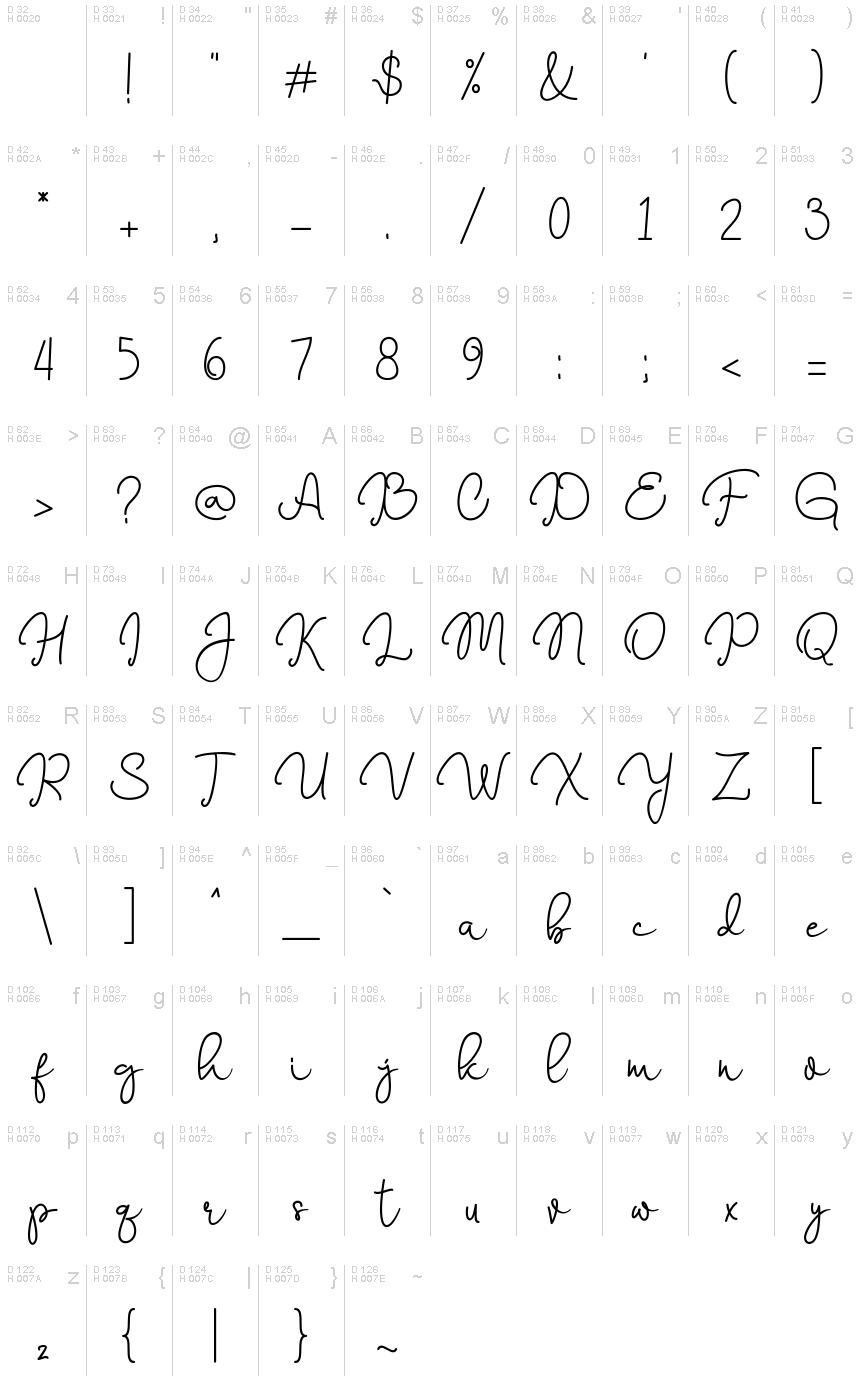
Marrisa
Marrisa is a captivating handwritten font that exudes a delicate, whimsical charm. Designed by Aldedesign, its light stroke weight and fluid, organic lines create a sense of effortless elegance. The font's distinctive character shines through in the subtle variations and natural flow of each letter, evoking the graceful flourishes of handwritten calligraphy.
Marrisa's versatility makes it an ideal choice for a wide range of design applications, from elegant wedding invitations and stationery to rustic branding and packaging. Its ability to convey a sense of warmth and personal touch makes it particularly well-suited for projects that seek to foster a connection with the audience.